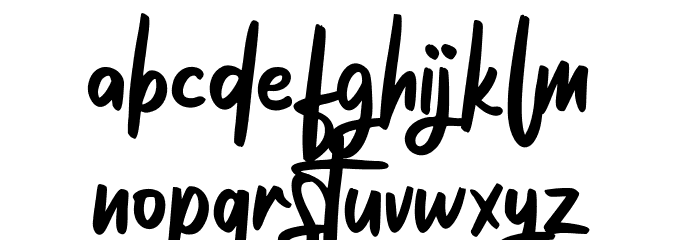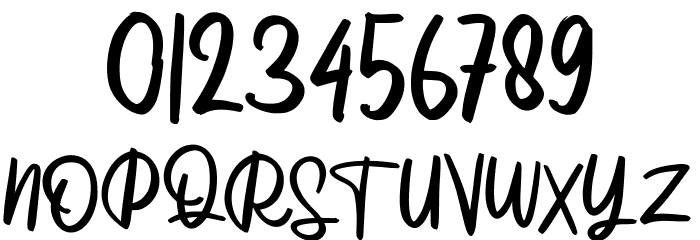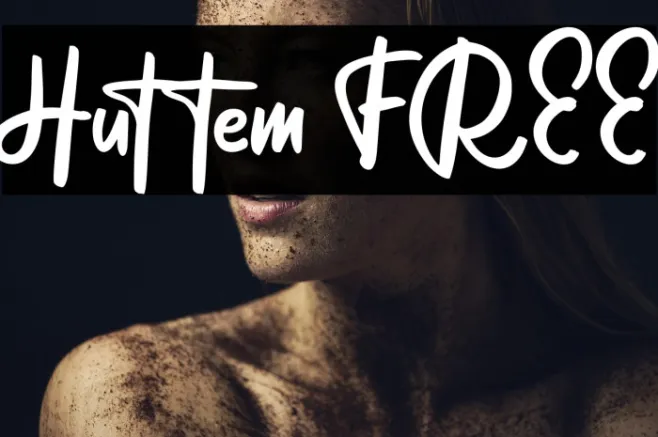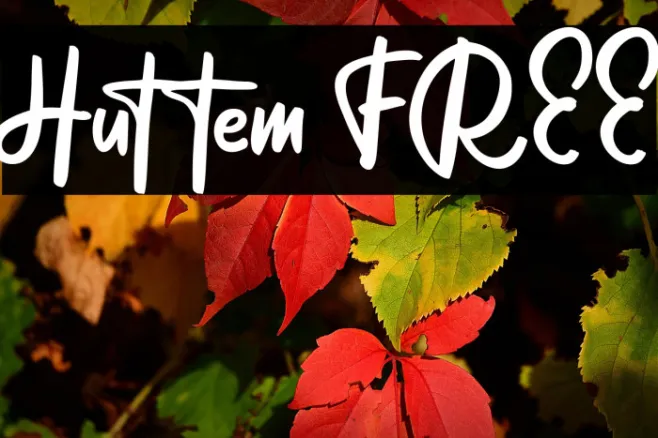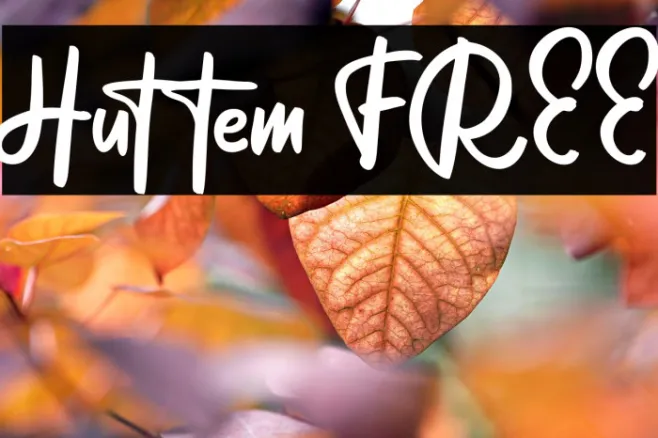
Huttem FREE Font
This font features a playful and energetic script style, characterized by its bold and flowing strokes. The letters are interconnected with a smooth, cursive flair, giving it a handwritten appearance. The uppercase letters are tall and slightly exaggerated, while the lowercase letters maintain a consistent flow, enhancing readability. The numbers and special characters are designed to match the overall style, ensuring a cohesive look. This font's lively and informal nature makes it suitable for creative and expressive projects.
A bold, playful script font with flowing, interconnected strokes.
- Proposed Projects: Ideal for greeting cards, invitations, posters, and branding projects that require a personal and lively touch.